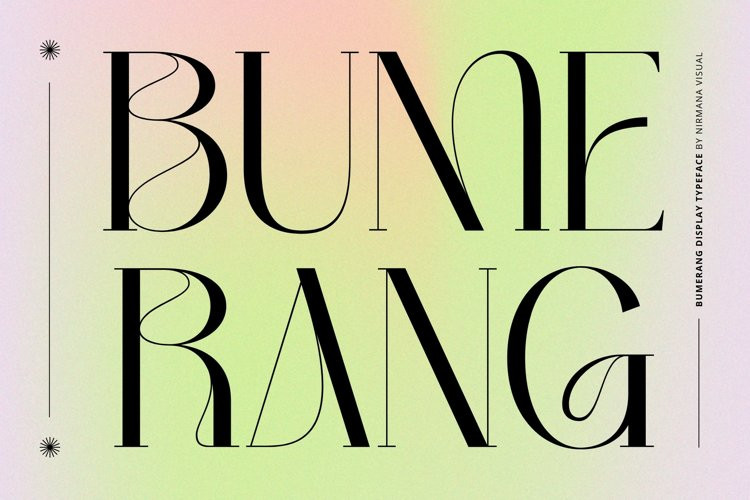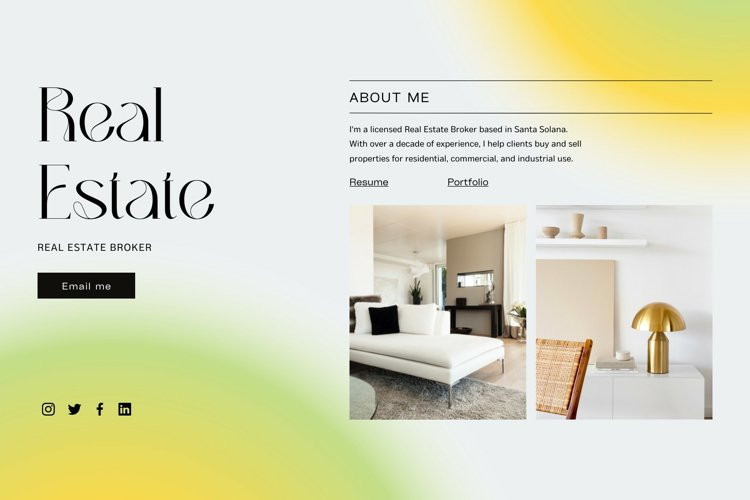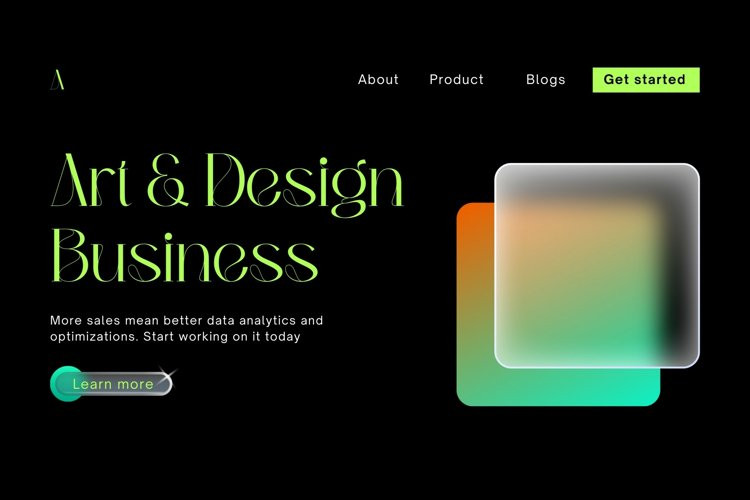
Bumerang Font
Bumerang FontBumerang , Inspired by art nouveau Design Era.
Bumerang Display serif offers beautiful typographic harmony for a diversity of design projects, including logos & branding, social media posts, advertisements & product designs.